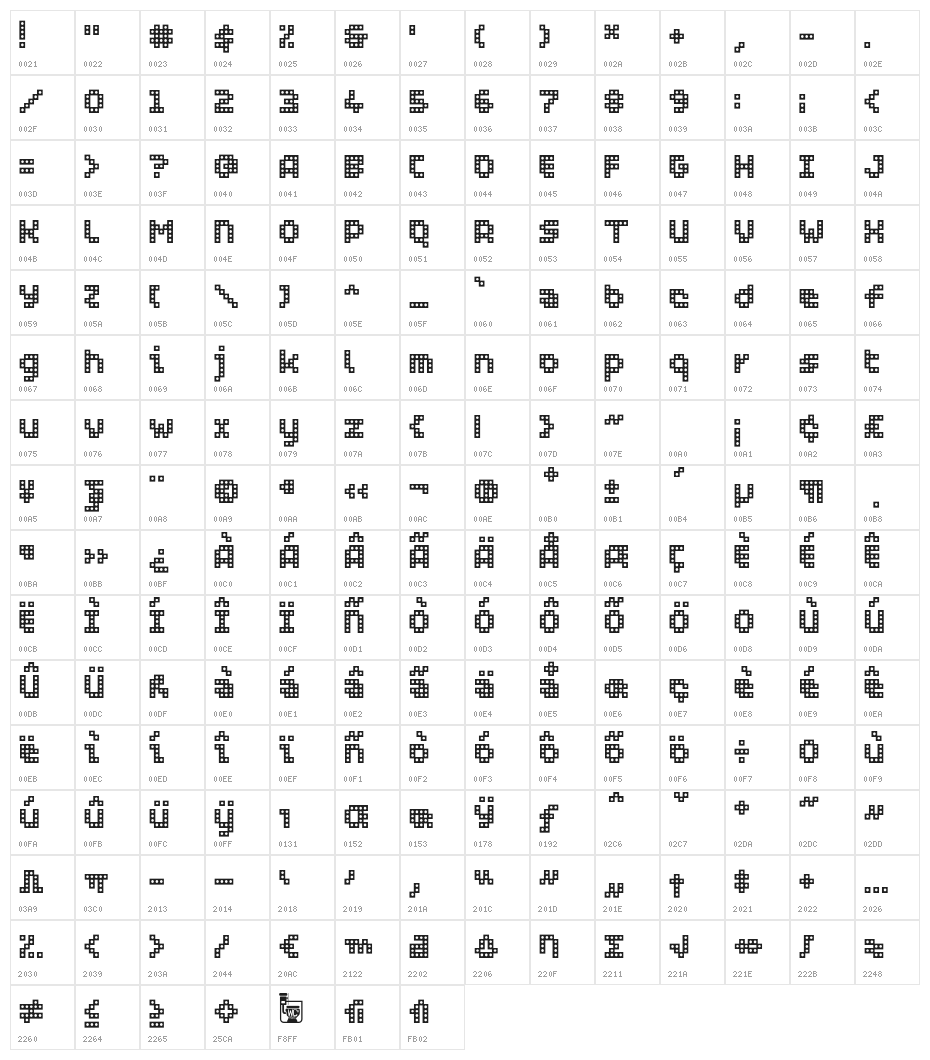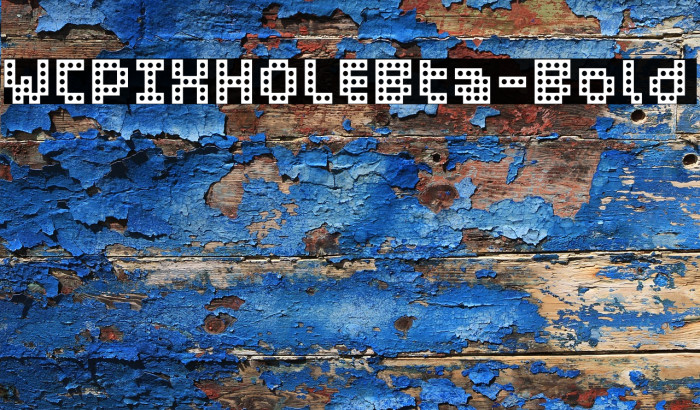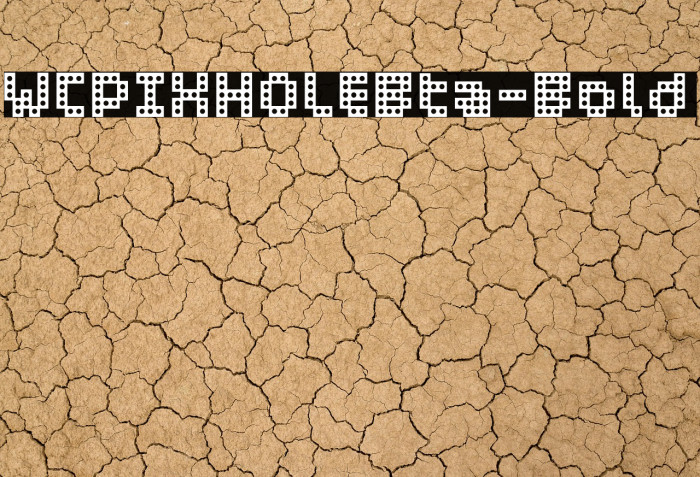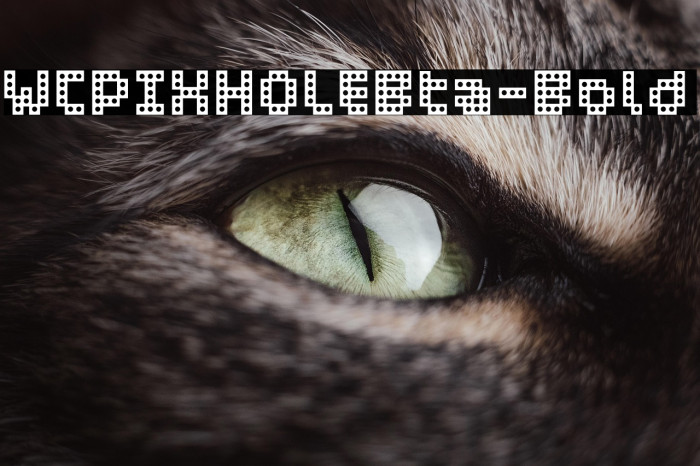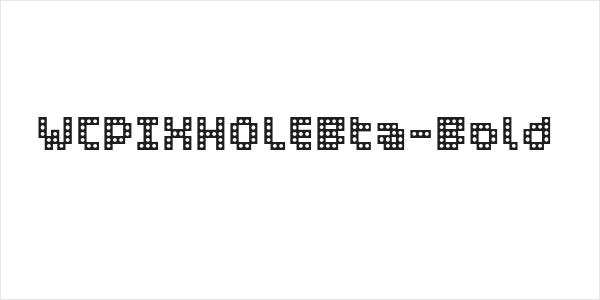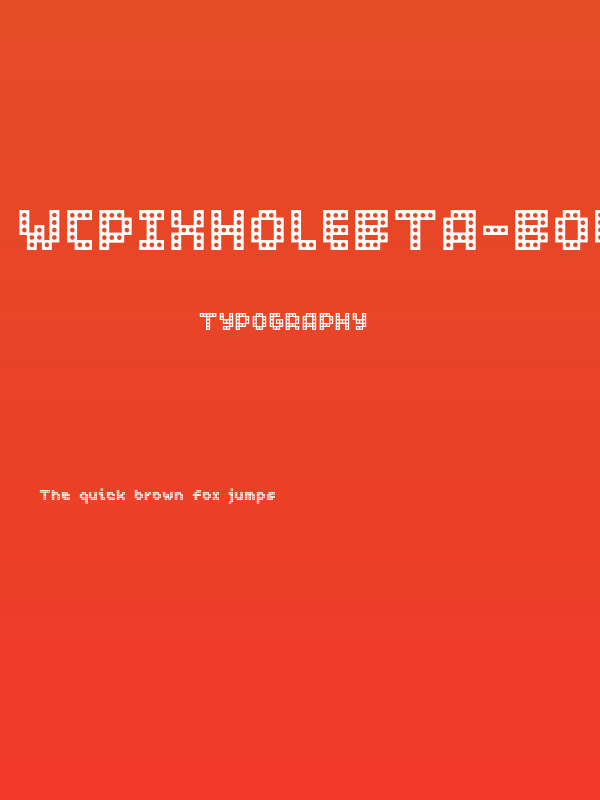
WCPIXHOLEBta-Bold Font
WCPIXHOLEBta-Bold Description
This font features a unique and playful design, characterized by its bold, pixelated structure with circular cutouts within each character. The geometric style gives it a digital, retro feel reminiscent of early computer graphics or arcade games. Each letter and number is constructed with a grid-like pattern, creating a sense of uniformity and balance. The special characters maintain this aesthetic, ensuring consistency throughout the font. Its distinct appearance makes it ideal for projects that require a fun, eye-catching typeface.
| Overall Style | Retro, Digital |
| Proposed Projects | Ideal for video game graphics, digital art projects, retro-themed posters, and playful branding materials. |